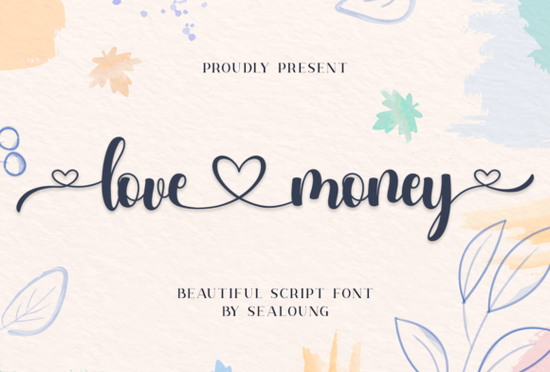
Finding a handwritten font that feels personal yet polished can be tricky, especially for romantic projects. Love Money Font fills that gap beautifully, pairing flowing calligraphy with sweet heart ornaments that turn ordinary text into something heartfelt. Whether you design wedding suites, Valentine’s cards, or custom drinkware for a small shop, this script keeps things clean and charming without looking overly formal.
What makes this script font stand out for invitations and greeting cards?
The most noticeable detail is the soft, varying baseline. Letters don’t sit stiffly on one line they dance slightly, which mimics real hand lettering. Combined with smooth, thin strokes and just enough contrast, the font reads like elegant handwriting instead of a typeface trying too hard. The built-in heart ornaments work as decorative separators, bullet points, or simple accents, so you don’t have to hunt for separate doodle graphics.
Which kinds of projects benefit most from this romantic style?
Beyond the obvious wedding invitations and save-the-dates, this font shines on:
- Valentine’s Day card fronts and social media graphics
- Logo concepts for florists, photo studios, or bridal boutiques
- Product labels for handmade soaps, candles, or luxury packaging
- Quote posters and framed art prints
- Branding assets for romantic-themed subscription boxes
Even a simple name tag or menu card gets a lift without needing extra illustration work.
And if a whisper-thin, minimalist aesthetic fits better, Whisper delivers a light airy script. The Whisper script font breakdown covers how to pair it with sans-serifs.
Love Money Font sits right in the middle romantic but not fragile, decorative but still readable at smaller sizes. The heart ornaments are what really set it apart when you need that unmistakable touch of romance without cluttering the layout.
Quick checklist before starting your next romantic project
- Test a few alternate letter pairs (like “he,” “th,” “oo”) to see which ones feel right for your copy.